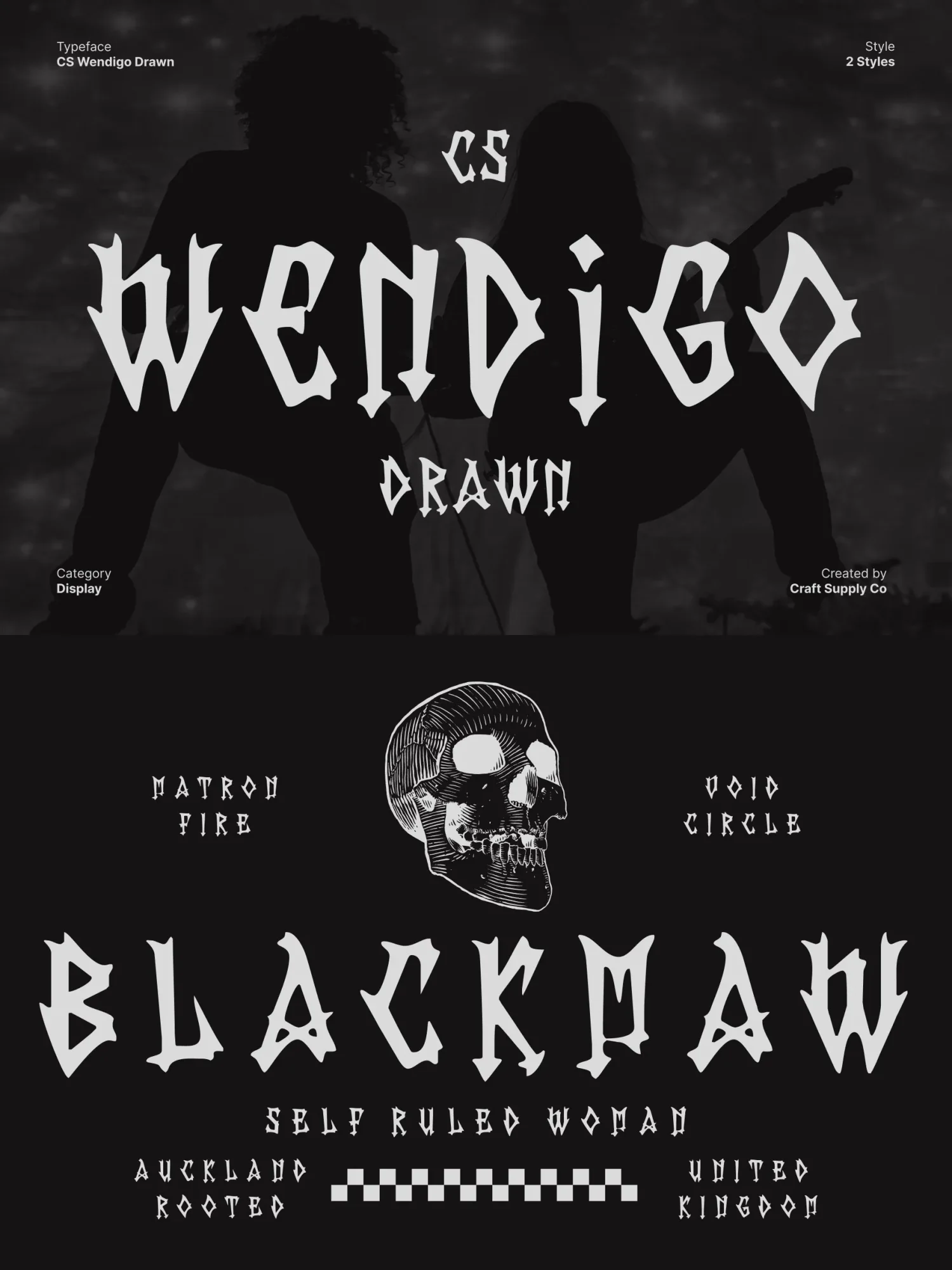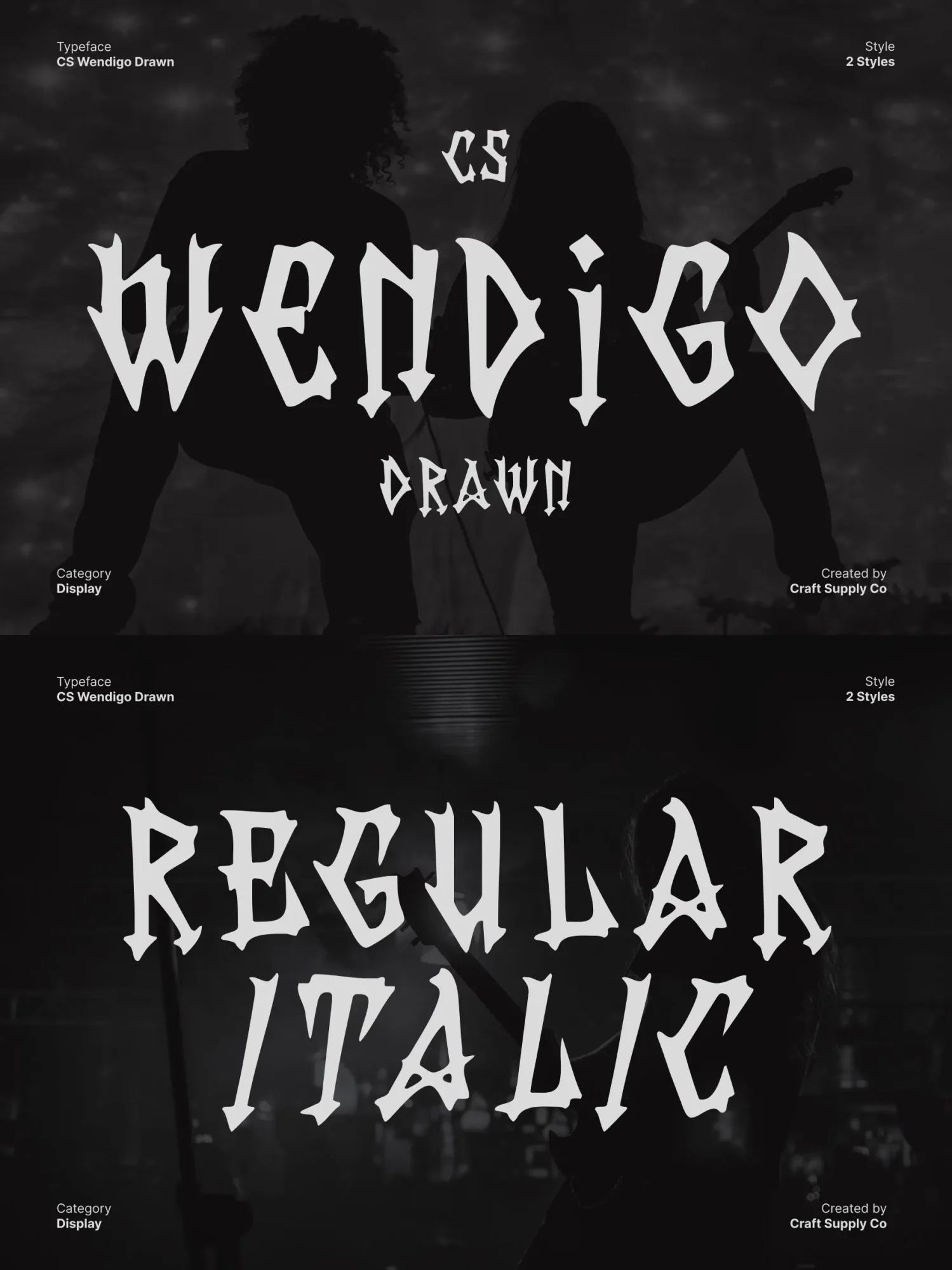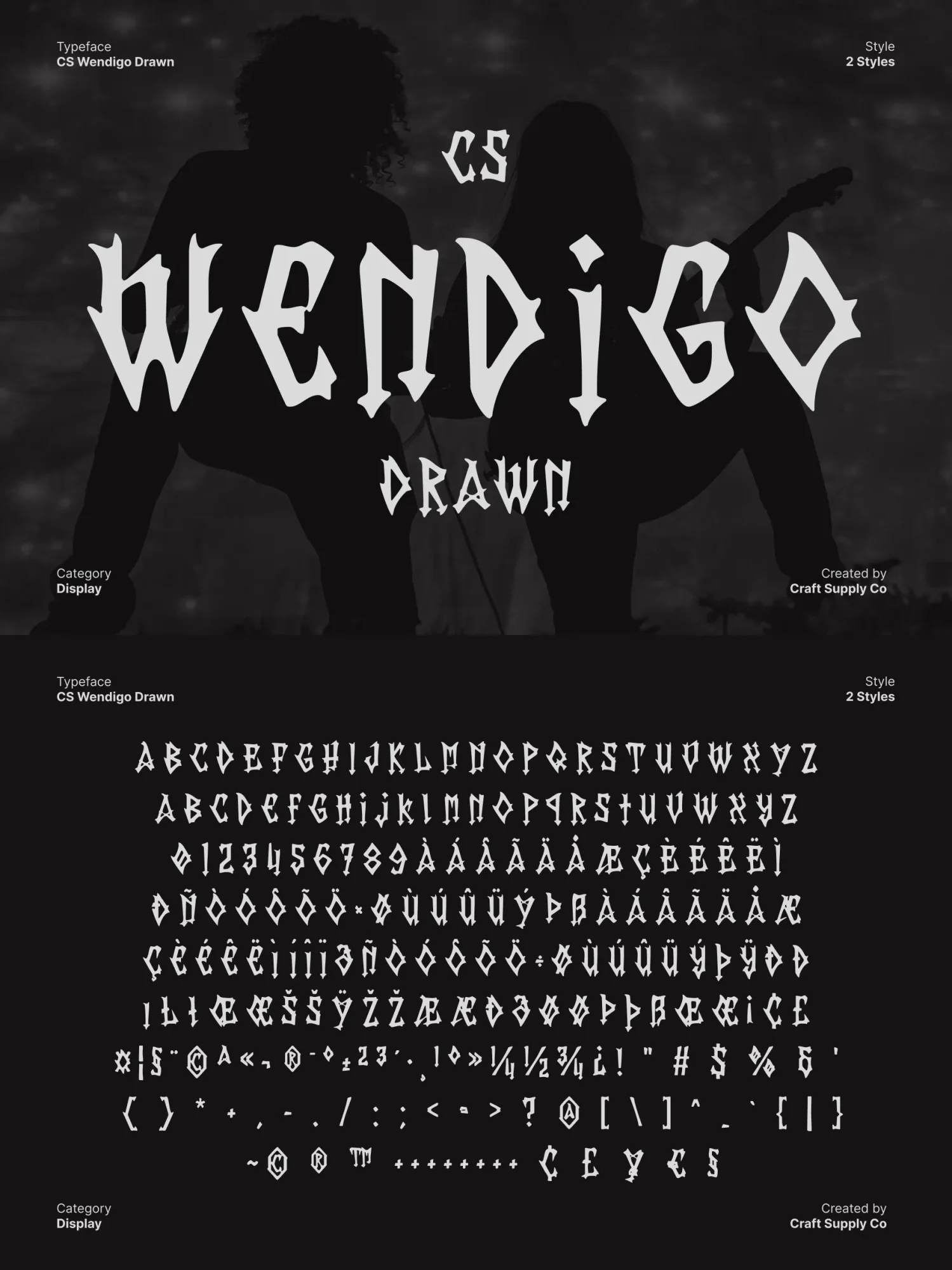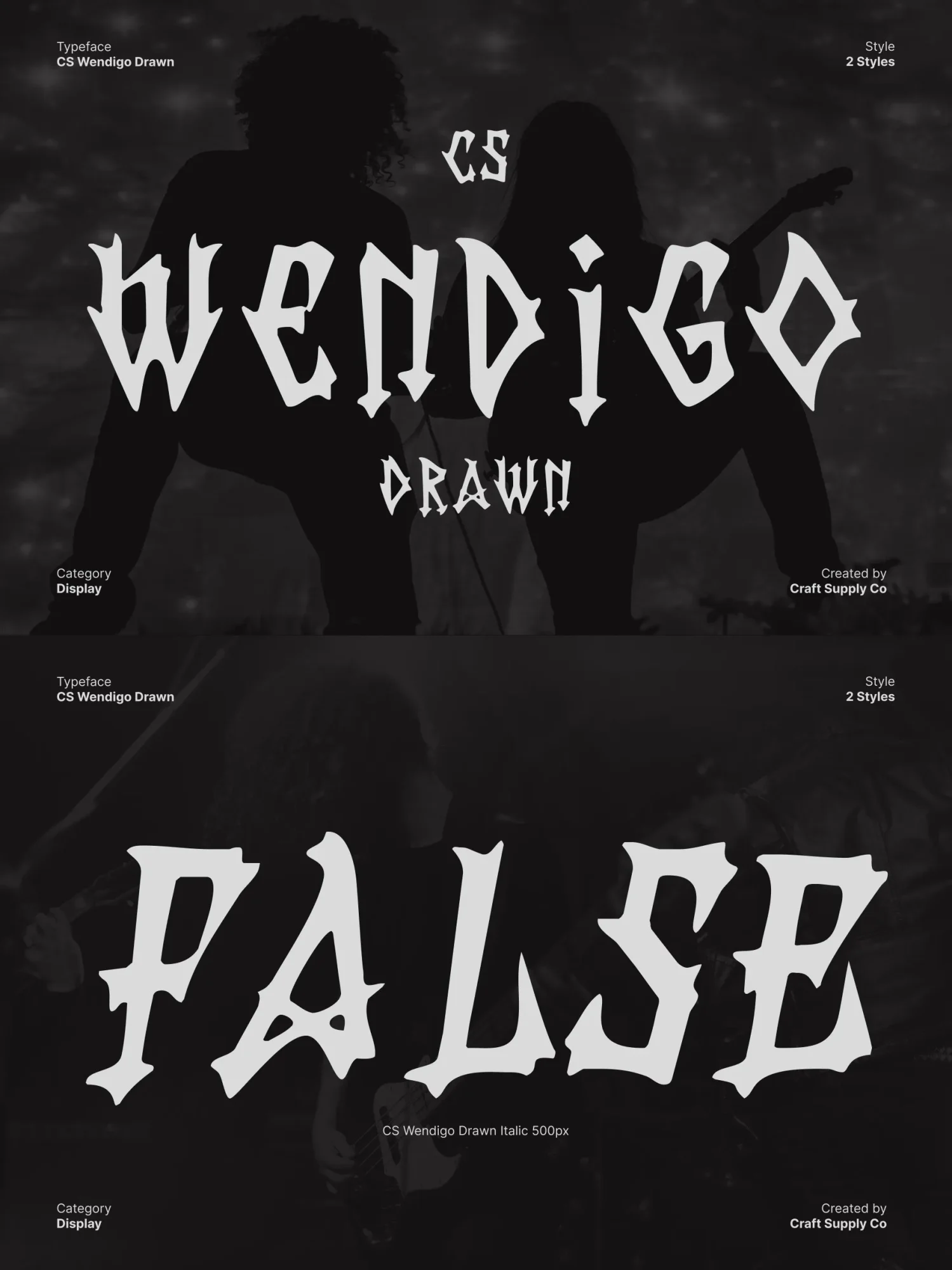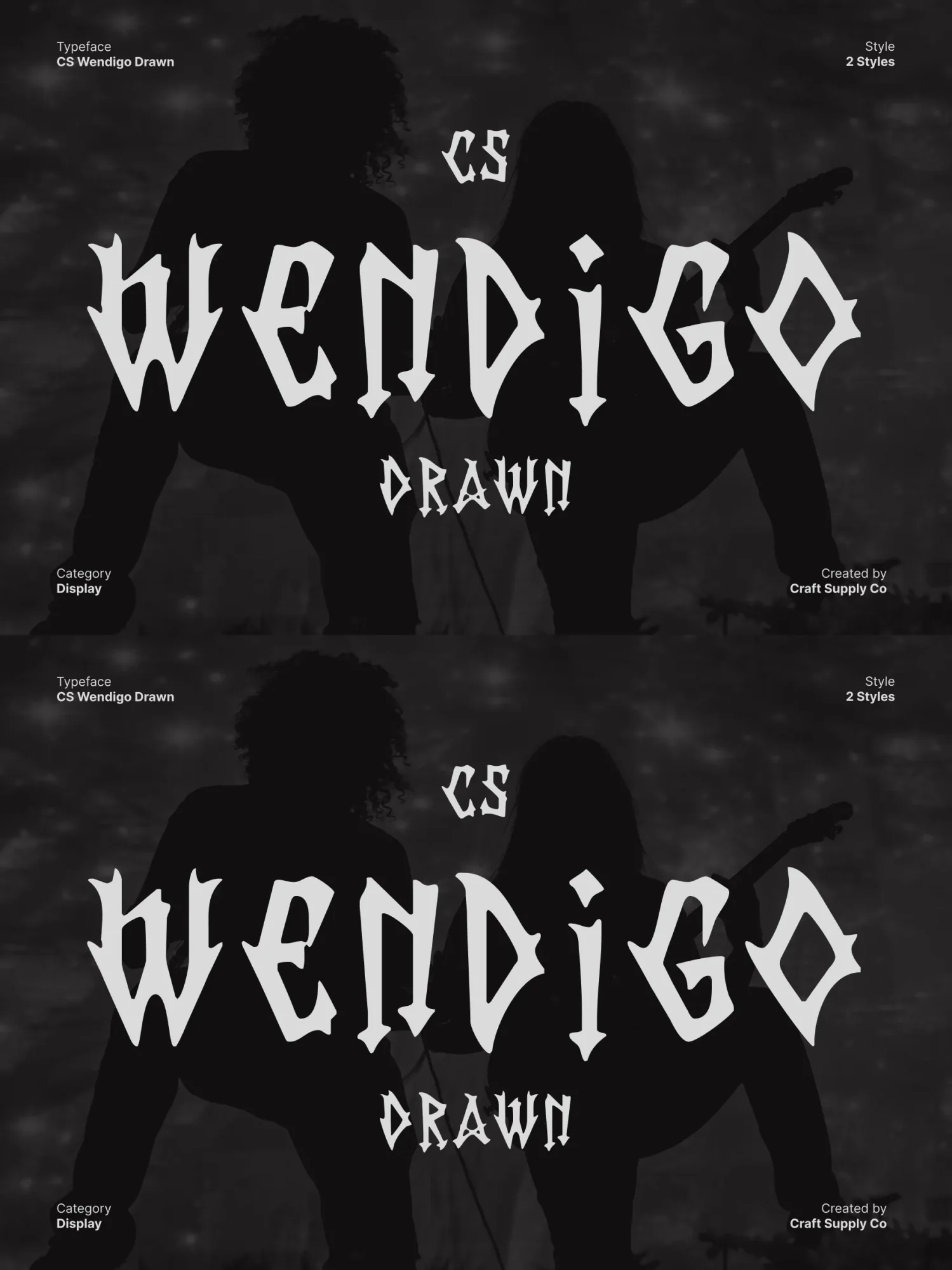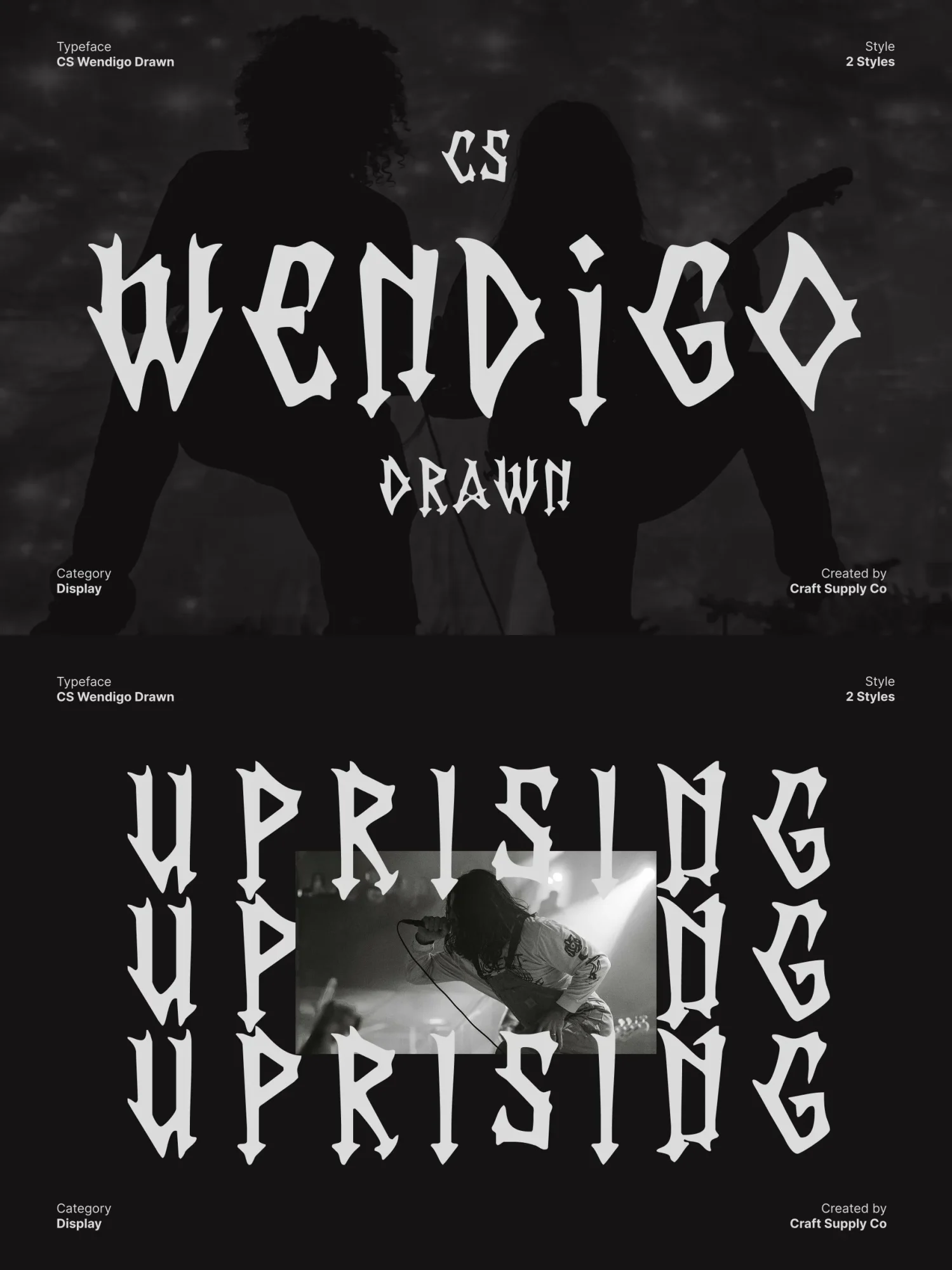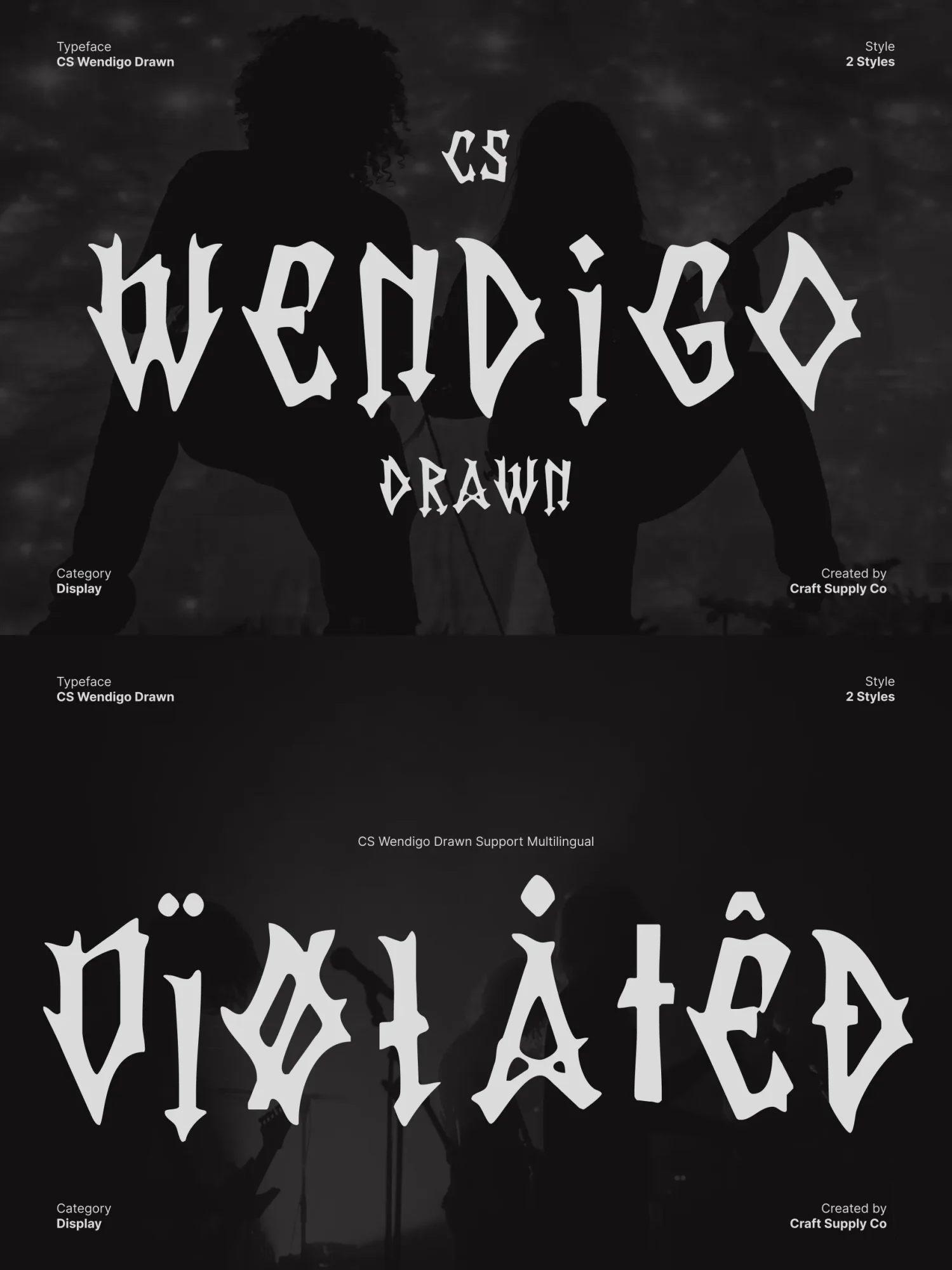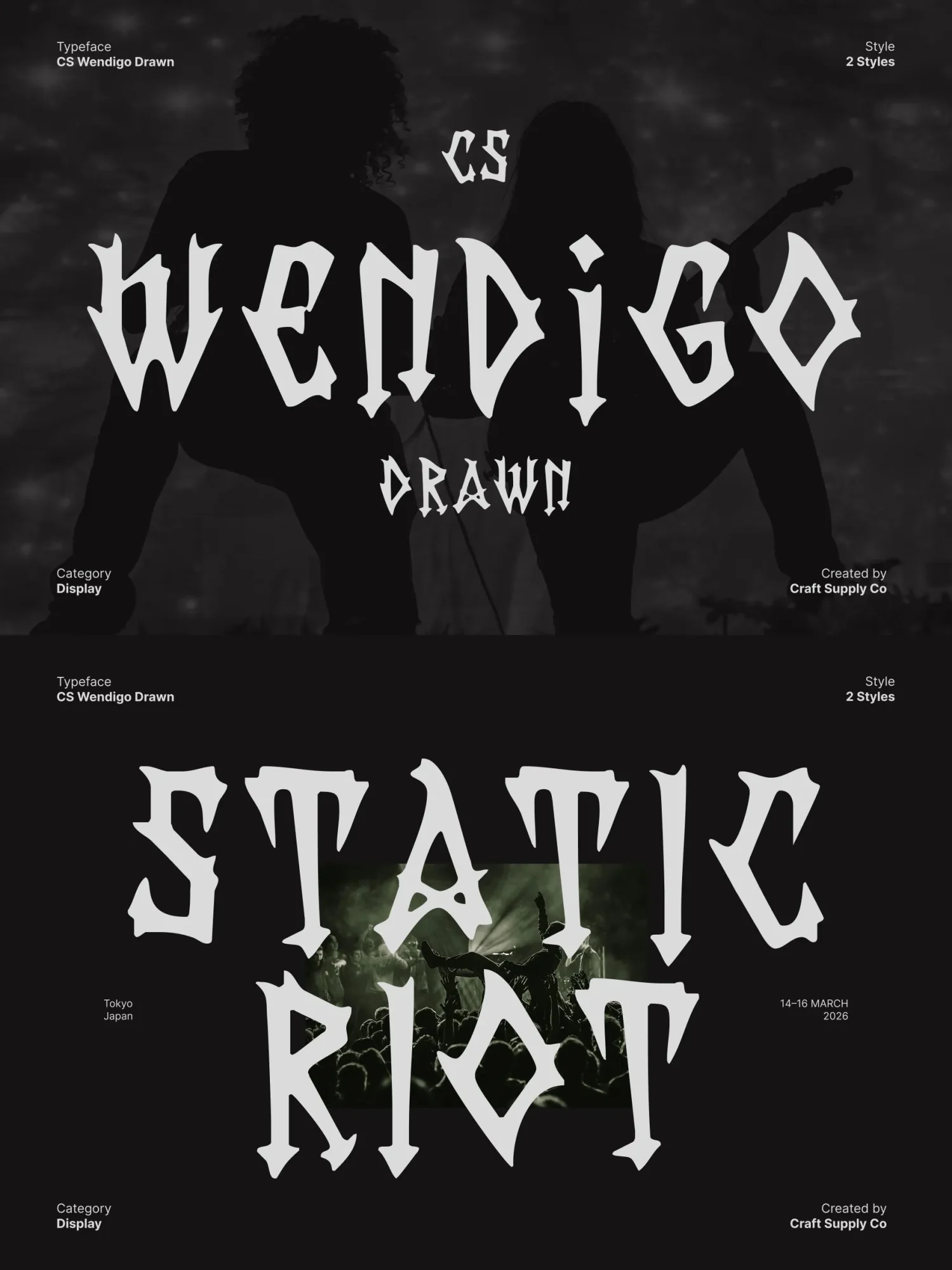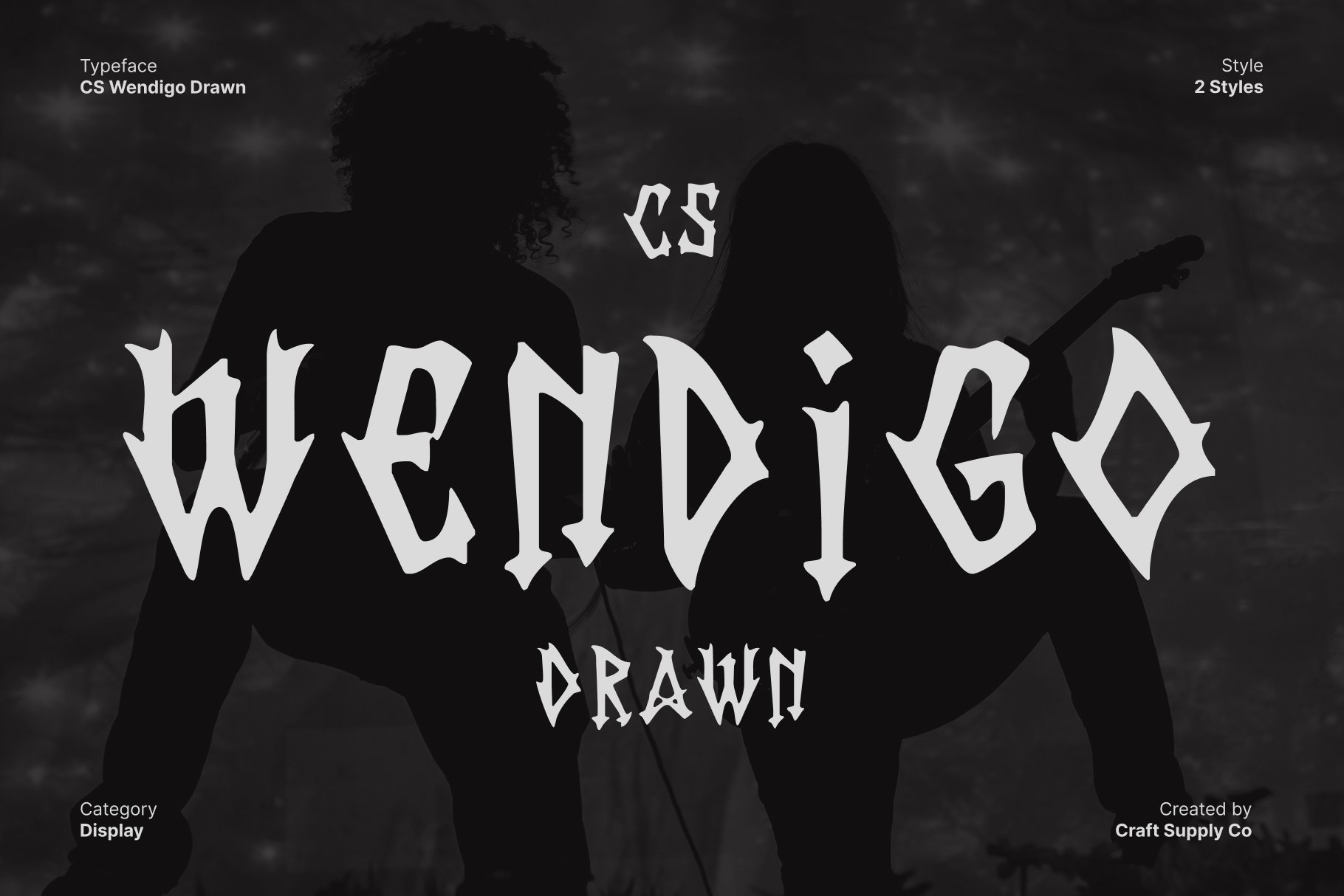
Jagged, Sharp Letterforms with Raw Hand-Drawn Power
This is a black metal display font featuring jagged, razor-sharp letterforms built to deliver an immediate and brutal visual impact. Its aggressive shapes are enhanced by a drawn effect that introduces raw texture and organic imperfection, making every character feel wild, untamed, and intensely expressive.
Eerie Atmosphere with Natural, Chaotic Texture
The hand-drawn treatment gives this font a darker, more visceral presence. Uneven strokes and fractured forms create an unsettling rhythm that amplifies its mysterious and ominous mood. This natural texture adds depth and authenticity, reinforcing the font’s eerie and unconventional identity.
Perfect for Extreme Music and Dark Visual Identities
Designed for black metal and extreme visual culture, this font excels in music posters, album covers, band logos, and underground branding. Its chaotic construction and aggressive texture communicate rebellion, darkness, and intensity with uncompromising attitude.
Fierce, Rebellious, and Viscerally Expressive
This font is more than typography it’s a statement of raw power and dark emotion. Ideal for projects that push boundaries and embrace intensity, this font delivers a bold, rebellious voice fueled by mystery, chaos, and handcrafted brutality.